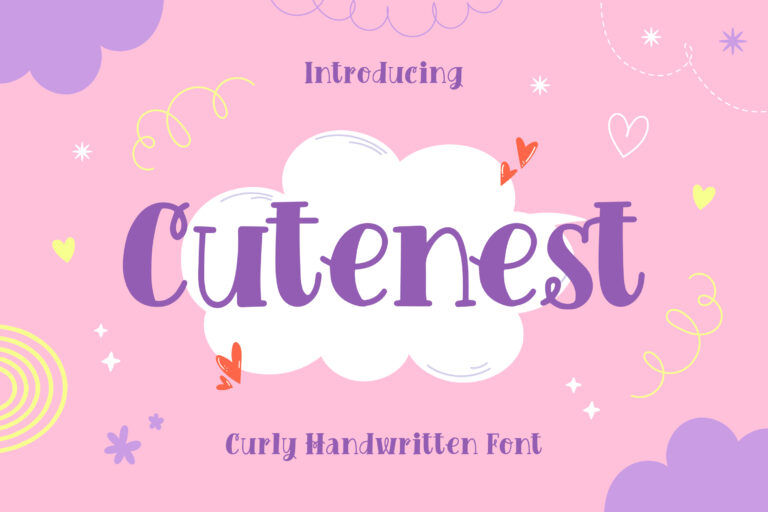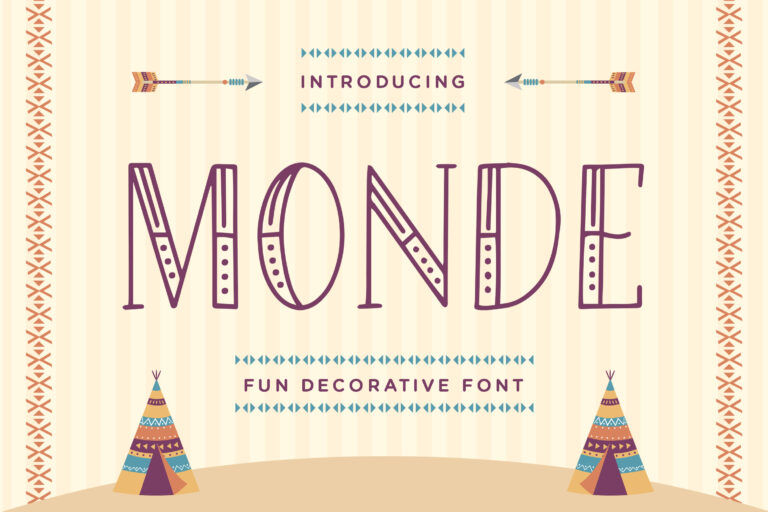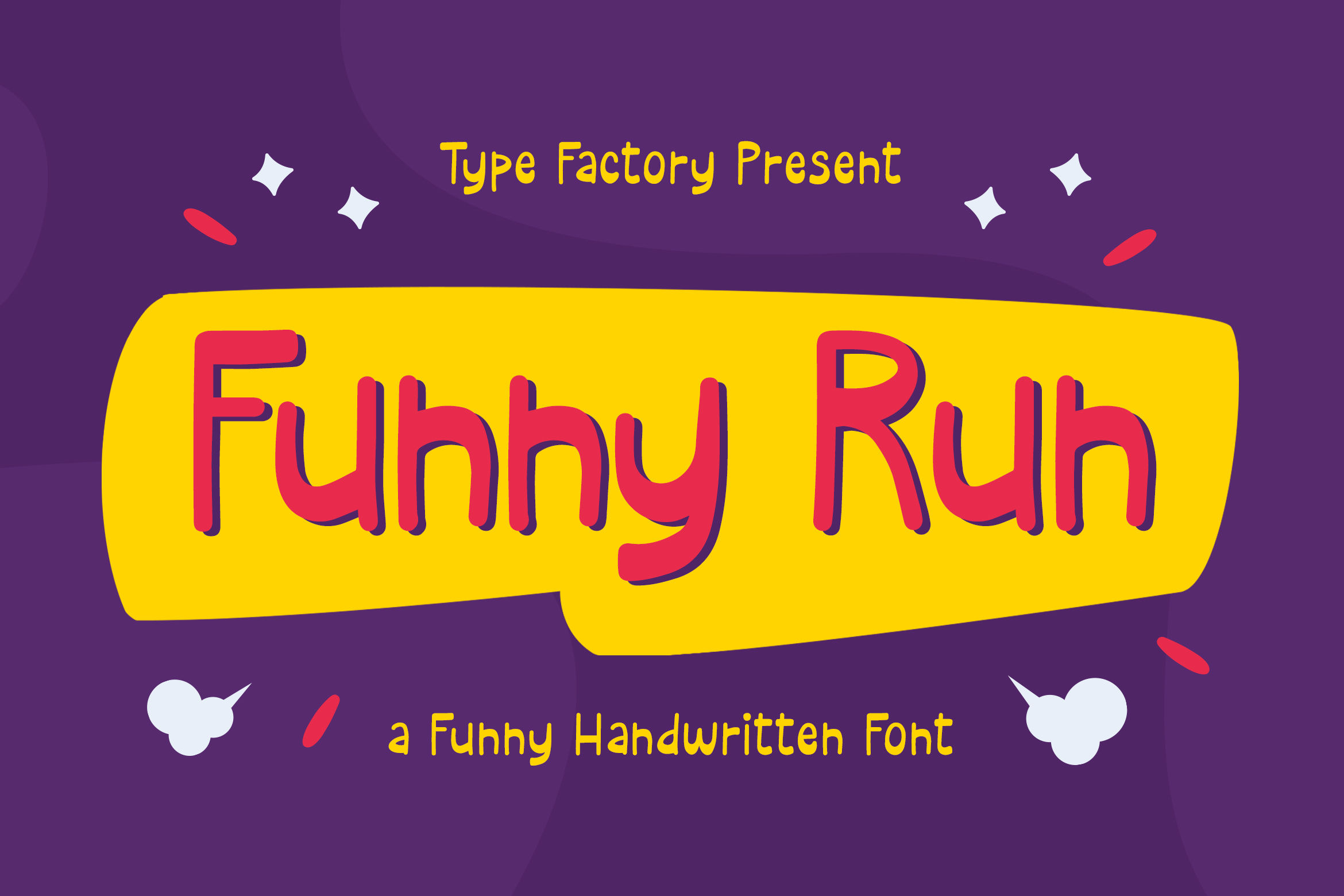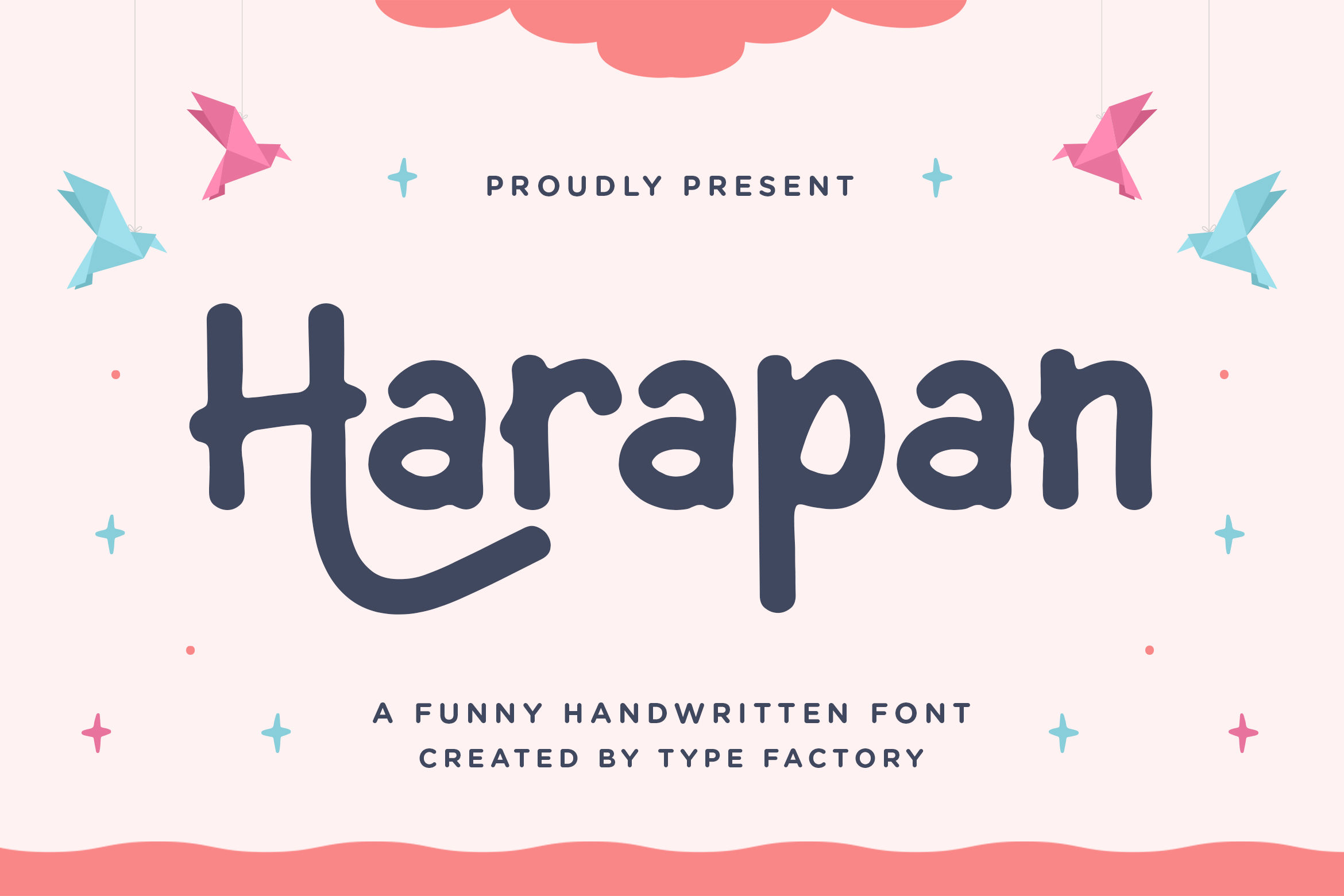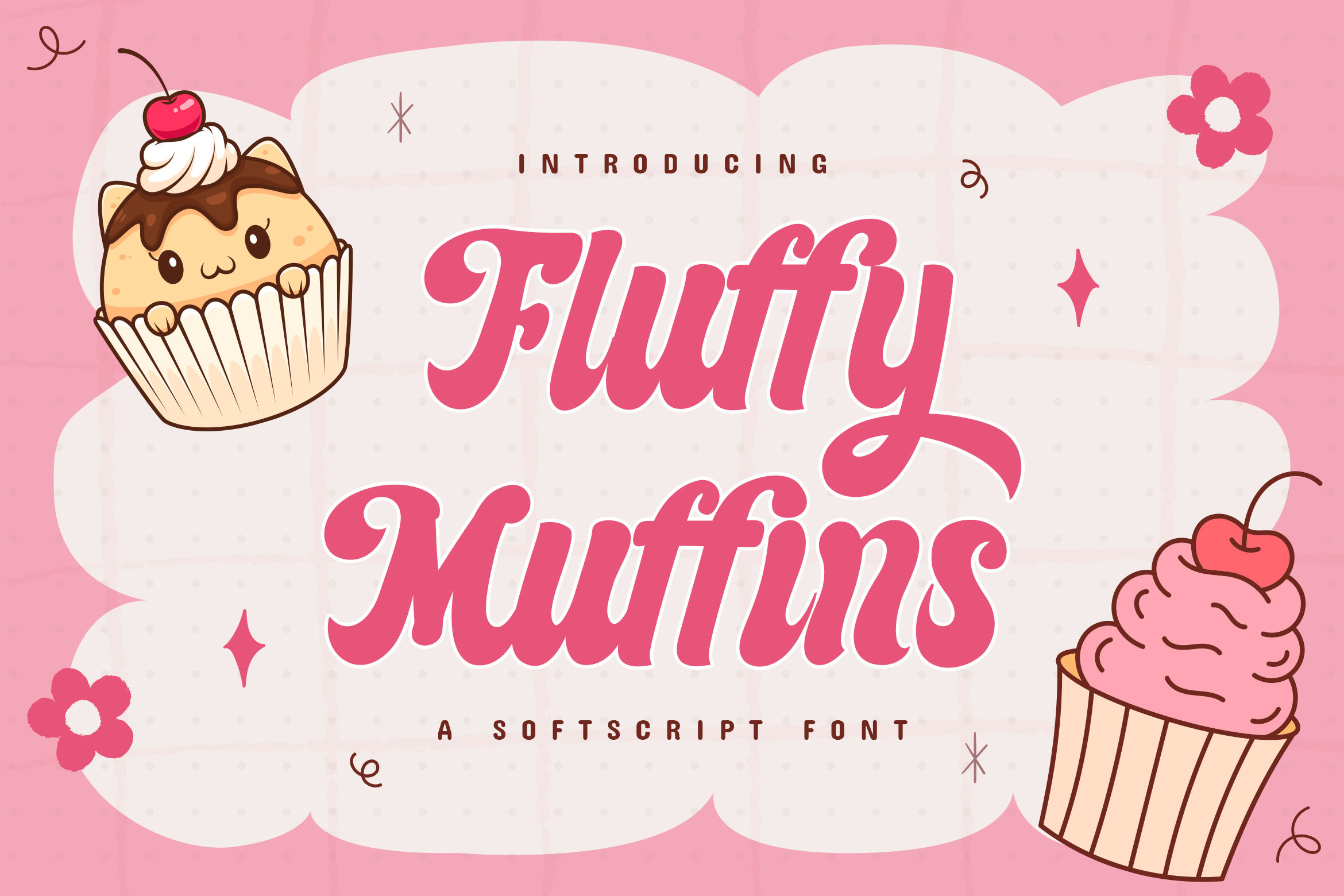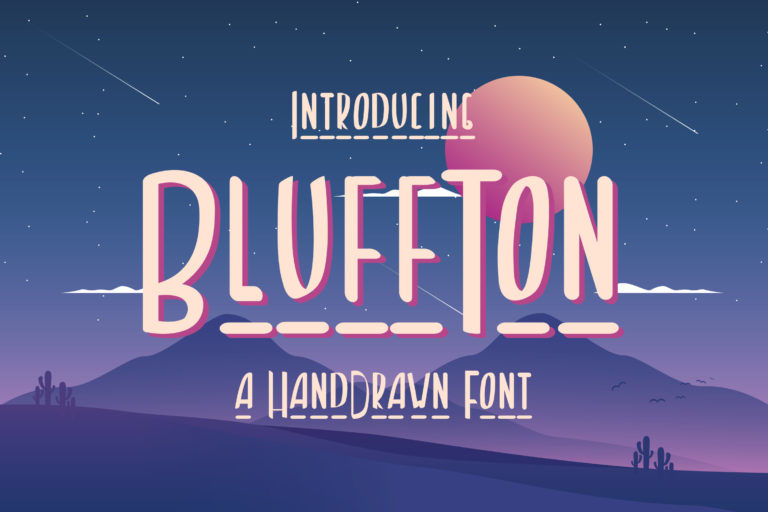
50 Best Happy Birthday Quotes to Make Anyone Feel Special
Birthday is one day that feels truly special, filled with joy, reflection, and heartfelt wishes from people we love. It is a moment when simple words can turn into lasting memories and warm emotions. That is why happy birthday quotes play an important role in expressing feelings that are sometimes hard to say.
Therefore, exploring different styles of birthday messages helps you connect better with the people you care about. Let’s explore together below!
50 Happy Birthday Quotes to Express Love and Gratitude
In the following, we’ve compiled a selection of a happy birthday quote for a friend, family, or other beloved one that conveys your emotions in a meaningful way. Keep reading!
Formal Birthday Wishes
1. Wishing continued success, health, and achievements in the year ahead.
2. May this special day mark progress, stability, and professional fulfillment.
3. Warm regards on your birthday, wishing growth and lasting accomplishments.
4. Sending sincere wishes for a productive and rewarding year ahead.
5. Best regards as you celebrate another year of purpose and excellence.
6. May today reflect respect, gratitude, and well-deserved recognition.
7. Celebrating another milestone with hopes for wisdom and prosperity.
8. Please accept my best wishes for success and continued advancement.
9. Honoring your birthday with appreciation and optimism for future endeavors.
10. Wishing you a distinguished year filled with positive outcomes.
Happy Birthday Quotes for Friends
1. Cheers to another year of laughs, chaos, and unforgettable memories together.
2. Growing older hits differently when I get to celebrate with you.
3. Another candle added, yet your energy stays wildly unstoppable.
4. Life feels lighter knowing I get to call you friend.
5. Celebrating you today, because friendship like ours deserves recognition.
6. Thanks for existing and making every year brighter together.
7. One more year cooler, funnier, and undeniably legendary today.
8. Here’s to you and the friendship that keeps evolving beautifully.
9. Still grateful for every adventure we survived side by side.
10. Today belongs to you, my favorite human through everything.
Romantic Birthday Quotes for Partners
1. Loving you grows deeper as another year of you unfolds.
2. Today celebrates the heart that makes mine feel whole.
3. Your birthday tells me that every year by your side feels warmer and safer.
4. Your existence alone makes this day incredibly special for me.
5. Another year loving you proves forever feels possible together.
6. Celebrating the soul who turned my life into home.
7. Of all the reasons to celebrate today, your smile remains my favorite.
8. This day reminds me why choosing you always feels right.
9. One more year loving the person who changed everything.
10. Time passes, and though you grow older, my love for you only grows stronger.
Happy Birthday Quotes as Captions for Social Media
1. Another year unlocked, evolving stronger, wiser, and happier today.
2. Officially leveling up and embracing everything ahead today.
3. Cake approved, candles lit, gratitude fully activated today.
4. I’m born to grow by learning more with every passing year.
5. Celebrating progress, lessons, and joy wrapped into one day.
6. Aging boldly, smiling freely, and thriving unapologetically today.
7. Proof that growth looks good on me today.
8. Today’s agenda: celebrate life and eat cake happily.
9. Another chapter begins, written with courage and gratitude.
10. Still shining, still learning, still moving forward today.
Happy Birthday Daughter Quotes
1. Watching you grow fills my heart with endless pride today.
2. Dear daughter, you shine brighter than any star on your day.
3. Forever my little girl, now blossoming beautifully into your dreams.
4. Your laughter makes every day brighter; celebrate yourself fully today.
5. Daughter, your kindness and courage inspire me endlessly each year.
6. Today celebrates you, my joy, my love, my everything.
7. Keep chasing dreams; your heart holds magic beyond imagination today.
8. Another year of you means more happiness than words can express.
9. Always remember, you are loved more than words can describe.
10. Daughter, your presence turns ordinary days into extraordinary moments today.
7 Creative Fonts for Birthday Quotes to Add a Personal Touch
To make happy quotes for birthdays more memorable, choosing the right font is just as important as the message itself. Here are seven fonts to add a personal touch to your wishes!
1. Lovely Kiddies